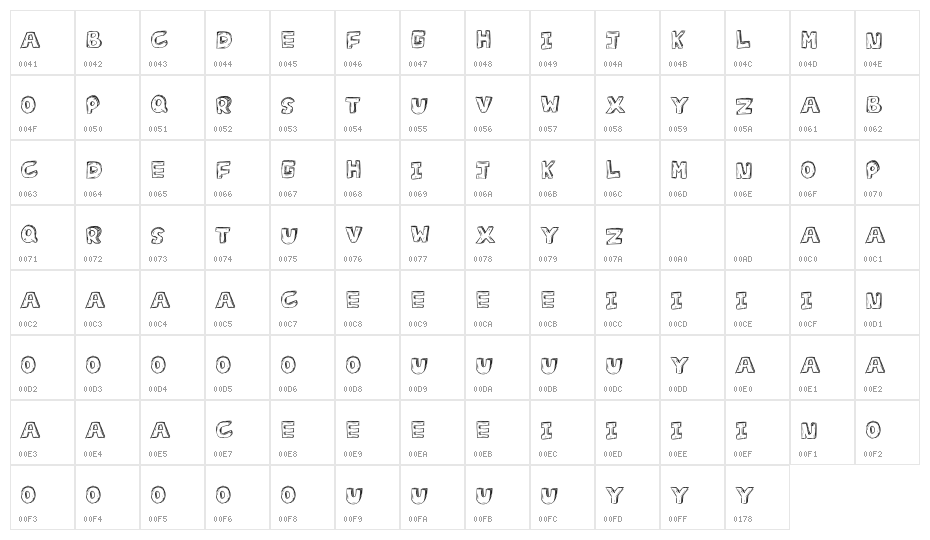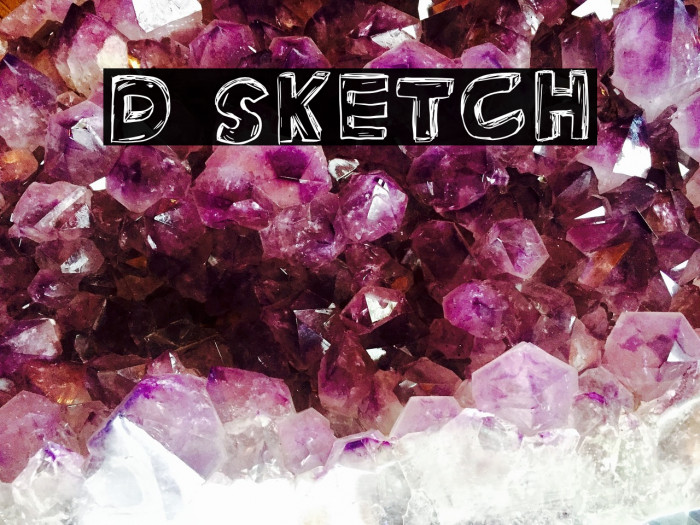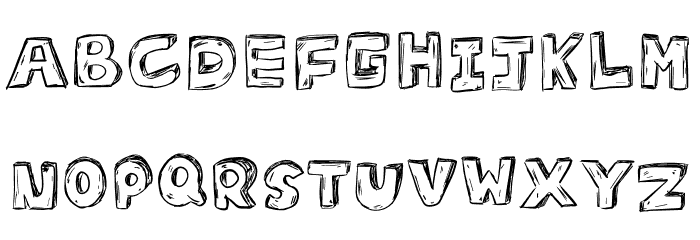
D Sketch Font
D Sketch Description
This font features a bold, sketch-like appearance with a hand-drawn aesthetic. The letters are uppercase and have a rough, textured look, giving them a playful and artistic feel. The strokes are uneven, adding to the casual and informal style. Each character appears as if it has been outlined with a pen or pencil, with visible sketch lines that create a dynamic and lively effect. The font is suitable for creative projects where a handmade or whimsical touch is desired. It stands out with its unique and eye-catching design, making it ideal for headlines, posters, or any design that requires a personal and artistic flair.
| Overall Style | Artistic, Playful |
| Use Case | Headlines, Posters, Creative Designs |
| Proposed Projects | Ideal for creative projects such as posters, headlines, and artistic designs that require a handmade touch. |